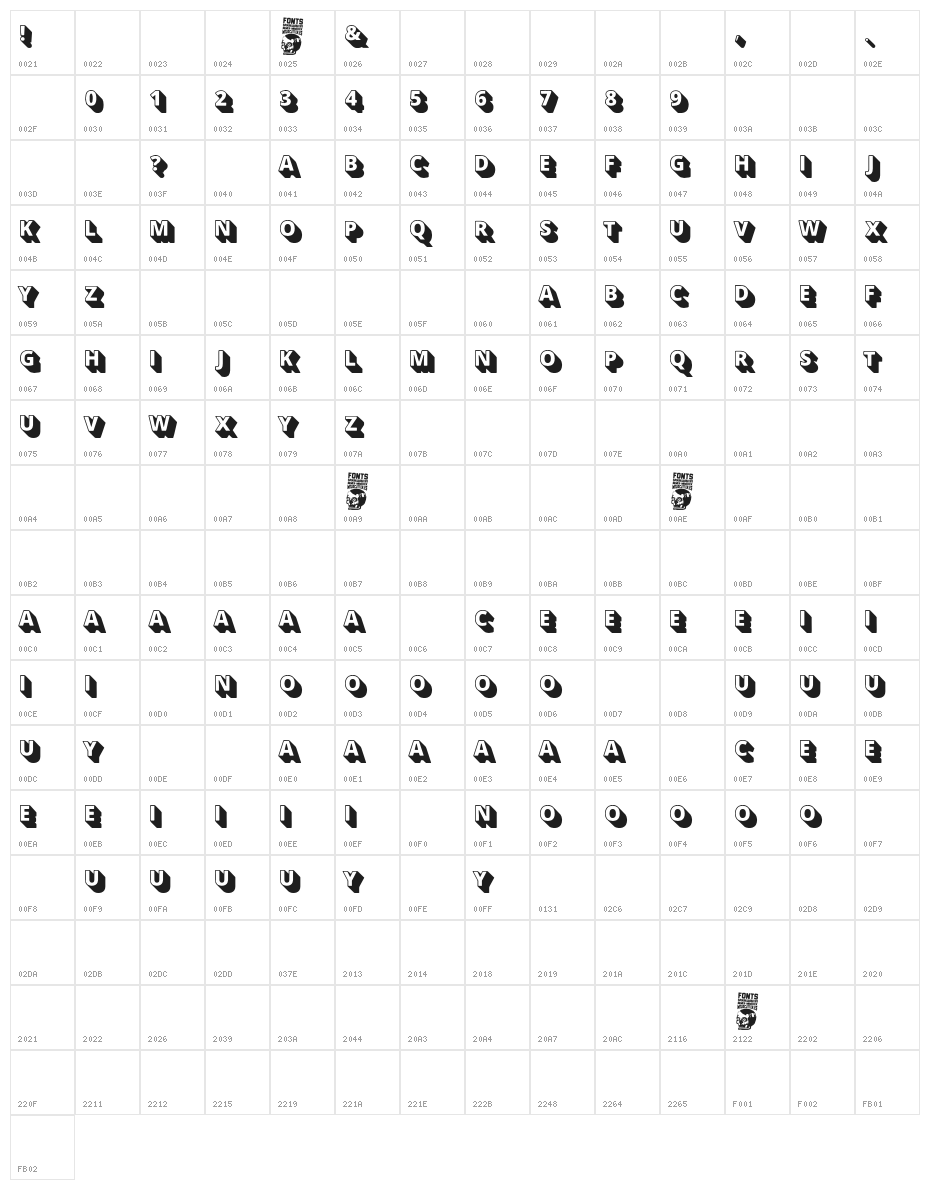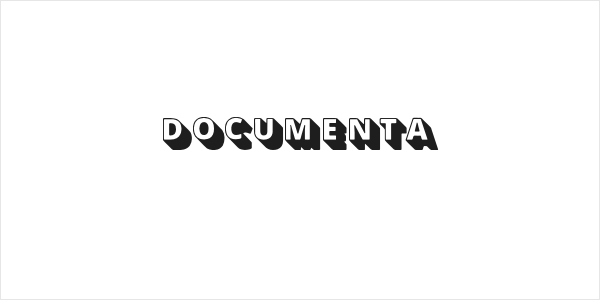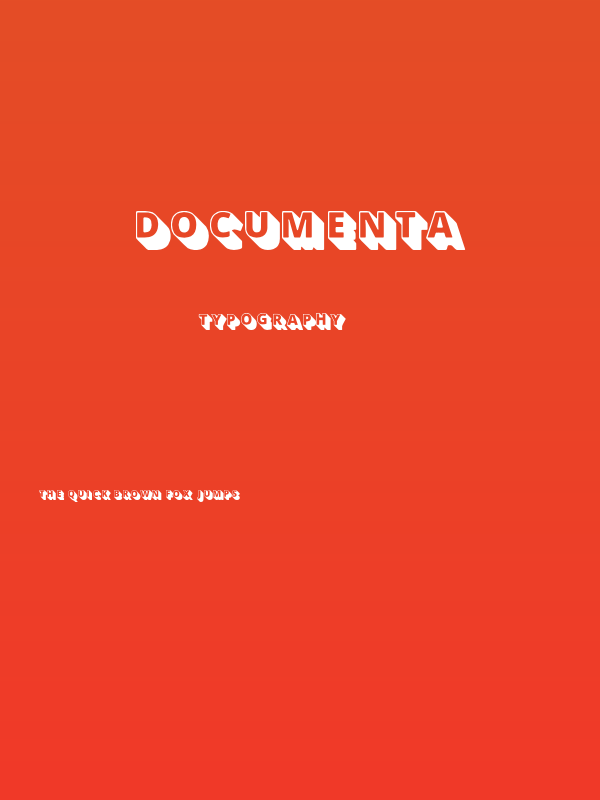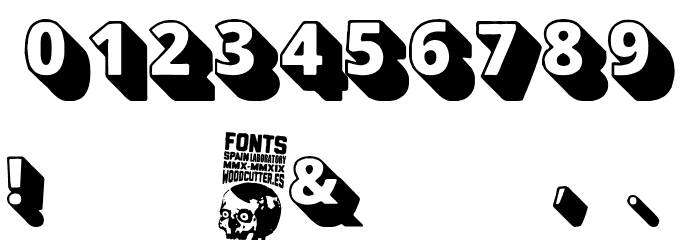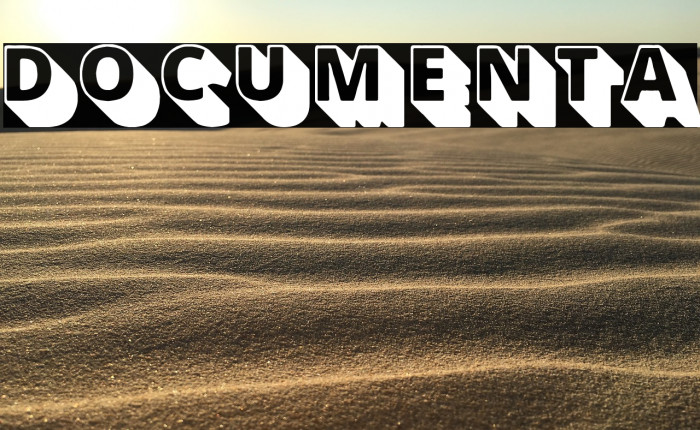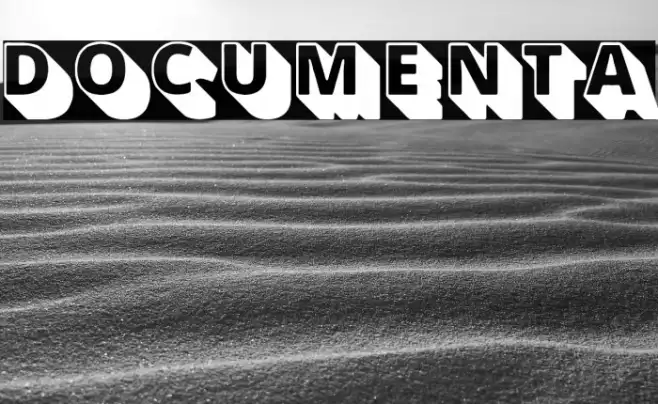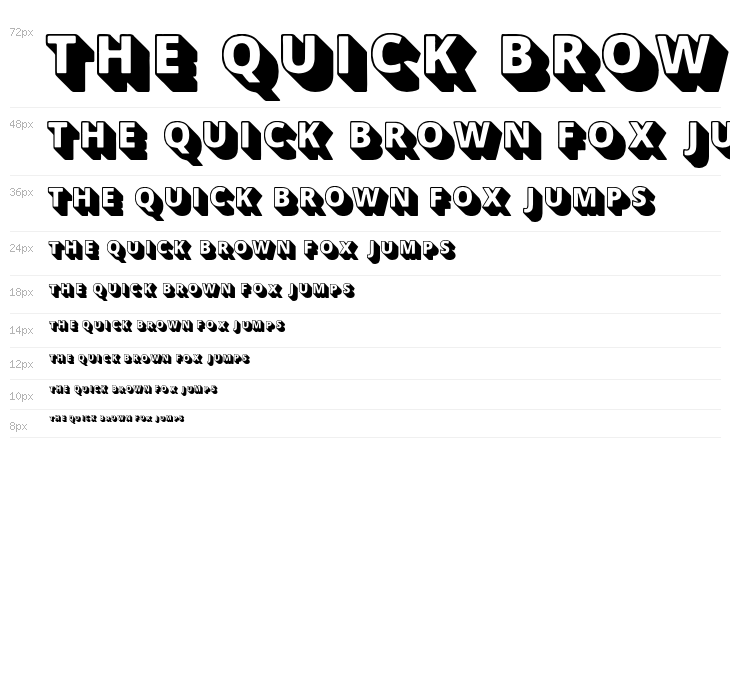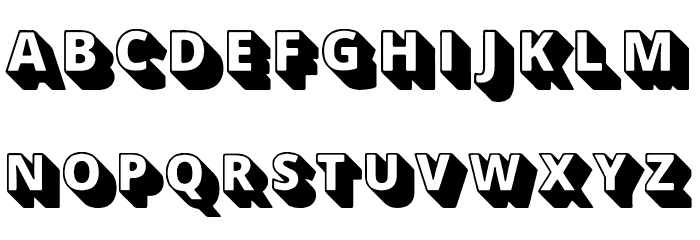
Documenta Font
Documenta Description
This font features a bold, three-dimensional design with a strong shadow effect, creating a striking and impactful appearance. The characters are uppercase and numerals, with a consistent, blocky style that emphasizes geometric shapes. The shadow adds depth, making it ideal for eye-catching designs. The font's playful yet robust nature makes it suitable for various creative projects. The special characters, including punctuation and symbols, maintain the same bold and shadowed style, ensuring consistency across all text elements.
| Proposed Projects | Ideal for posters, logos, headlines, and any design requiring a bold, attention-grabbing font. |